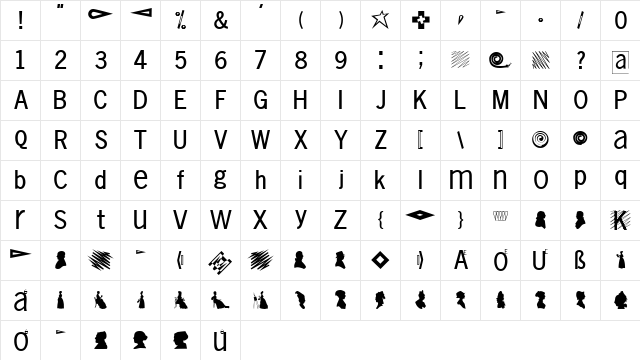
Vollkegel-Typewriter Regular
Design Context for Vollkegel-Typewriter Typeface
Vollkegel-Typewriter uses fixed-width spacing throughout, giving it the structured, systematic character associated with coding environments and technical documentation.